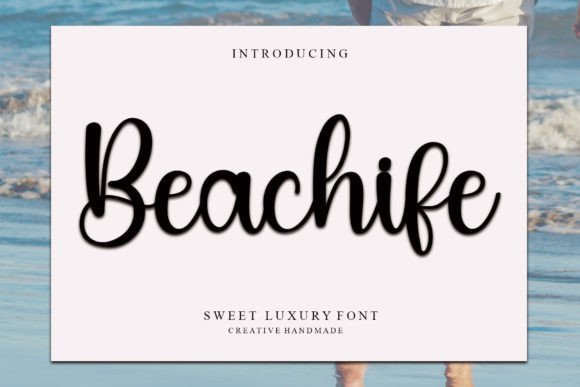
Immerse yourself in the realm of artistry with Beachlife Font, a handwritten masterpiece that exudes elegance and grace. This script font, meticulously crafted by Inermedia STUDIO, is a symphony of beauty inspired by the timeless charm of calligraphy.
With its contemporary flair and impeccable form, Beachlife Font is the ultimate choice for designers seeking to make a lasting impression. Its balanced strokes and varied characters create a visual harmony that captivates the senses, elevating your projects to new heights of sophistication.
Whether you're designing logos, branding materials, or eye-catching social media graphics, Beachlife Font is your perfect companion. Its versatility knows no bounds, adapting seamlessly to a range of creative endeavors.
Step into a world of artistic expression with Beachlife Font. Let its enchanting curves and graceful lines transport you to a realm where creativity flourishes and imagination takes flight.